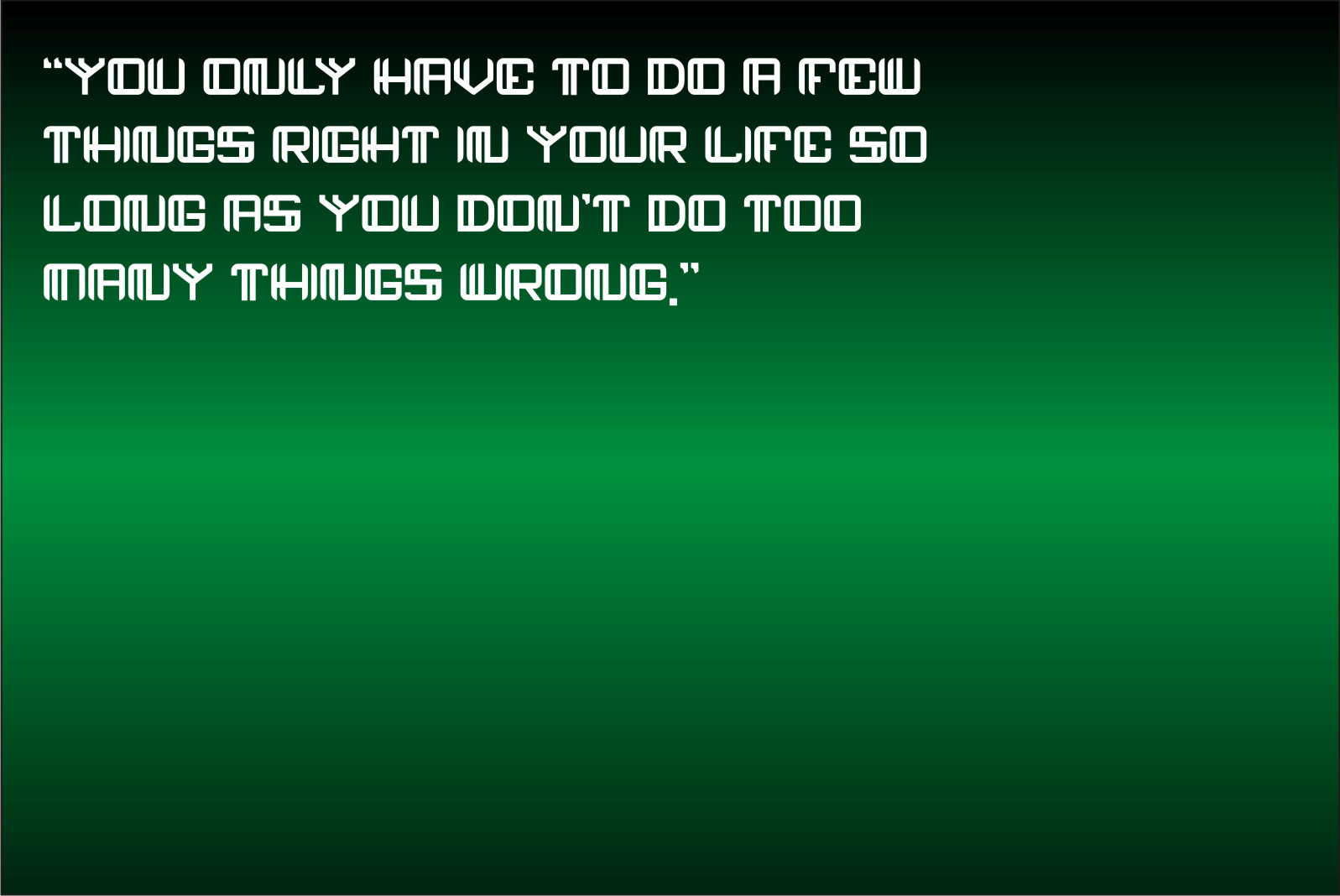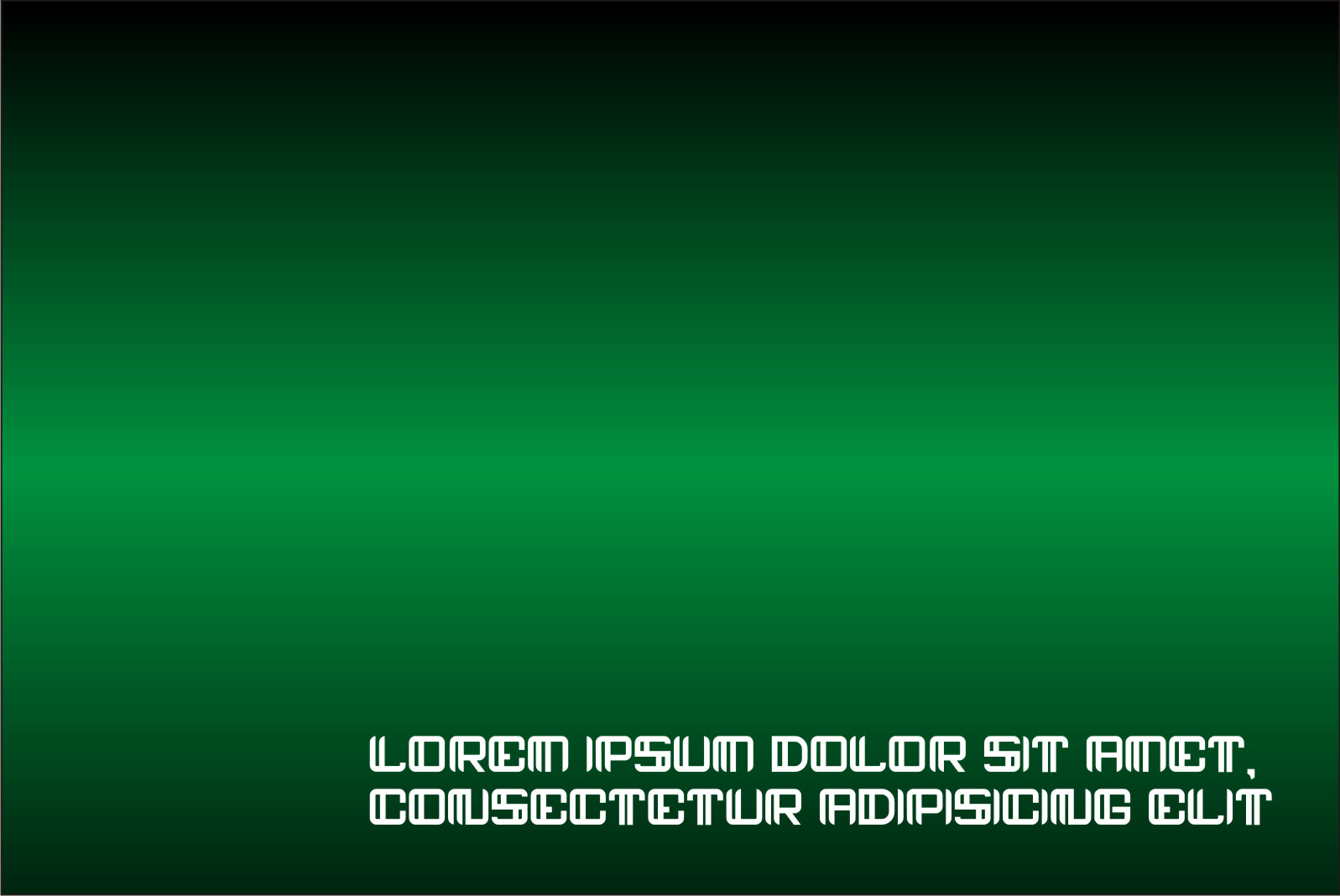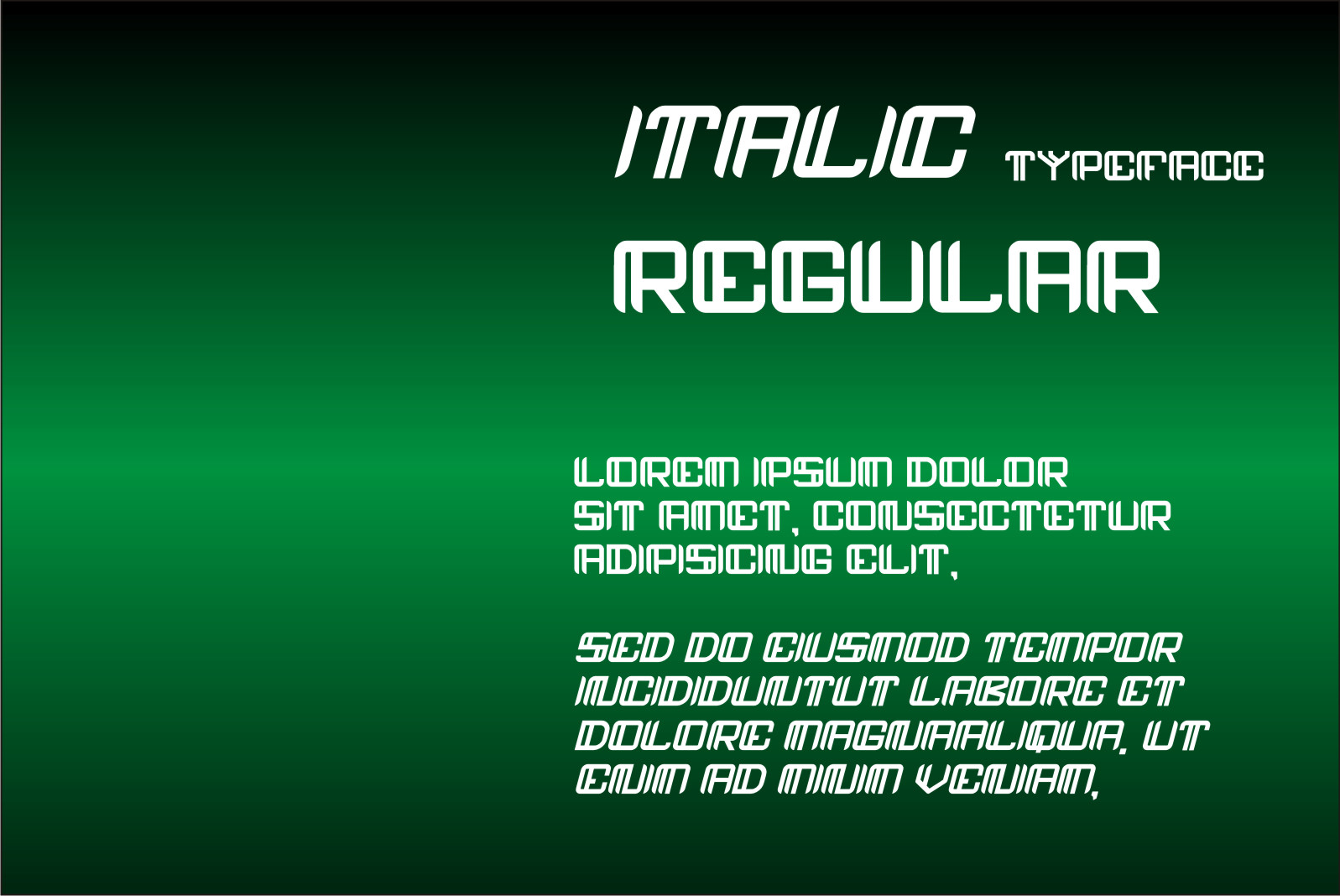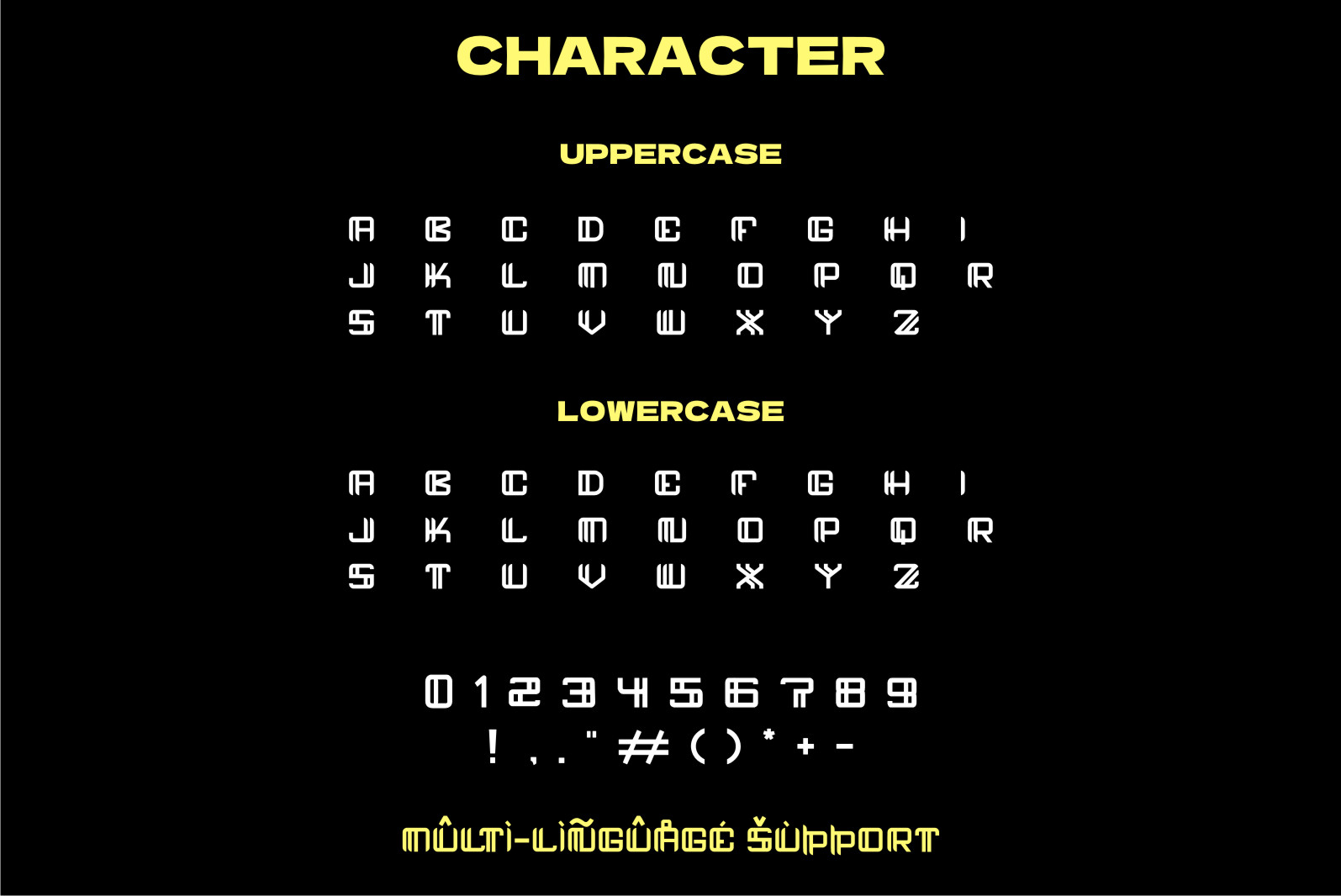
Ropcop Font
Ropcop Display Font
It’s a cool, bold and modern-styled display font. This font is ideal for web designs, business cards, or pretty much anything else that requires a futuristic touch.